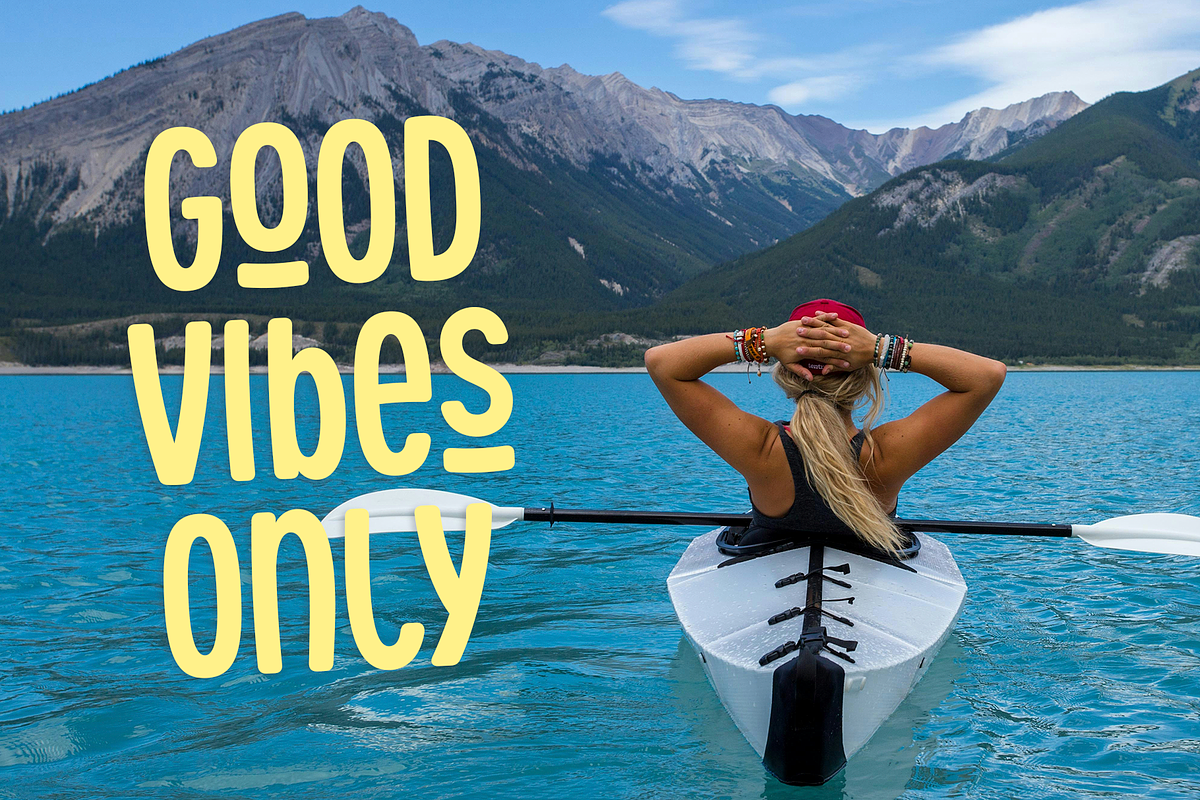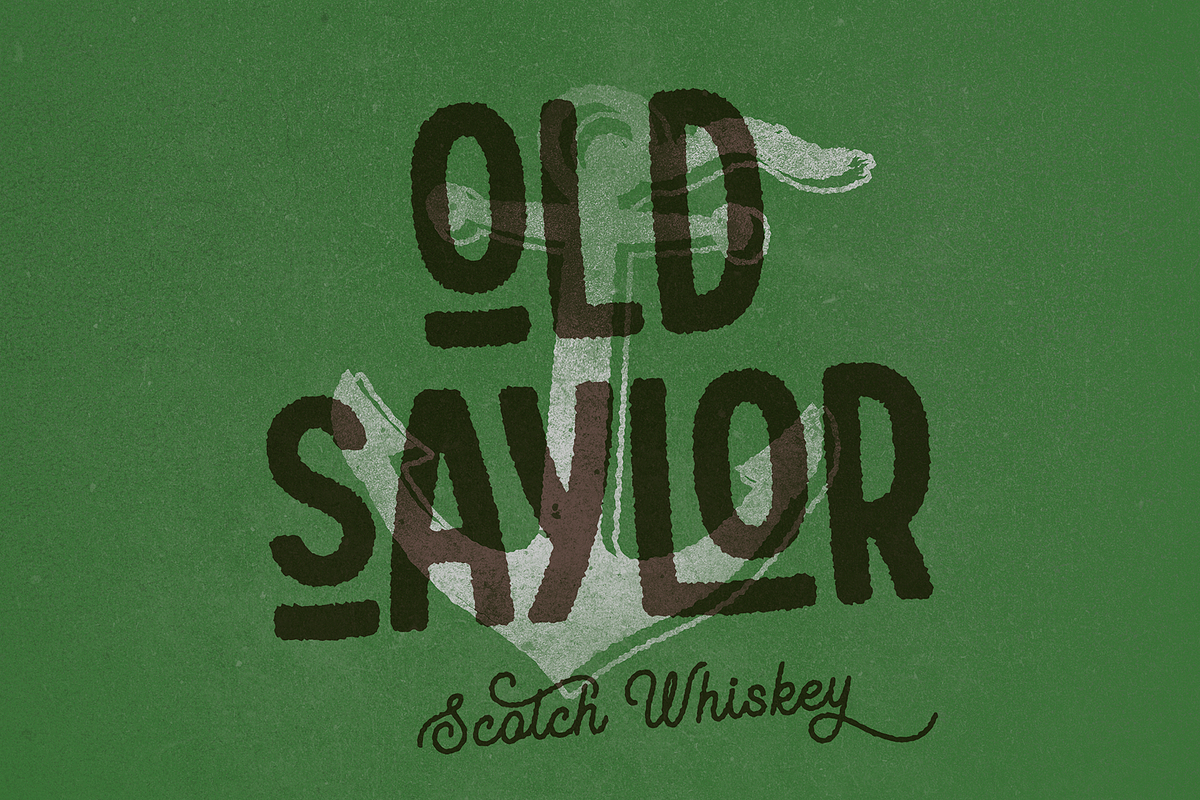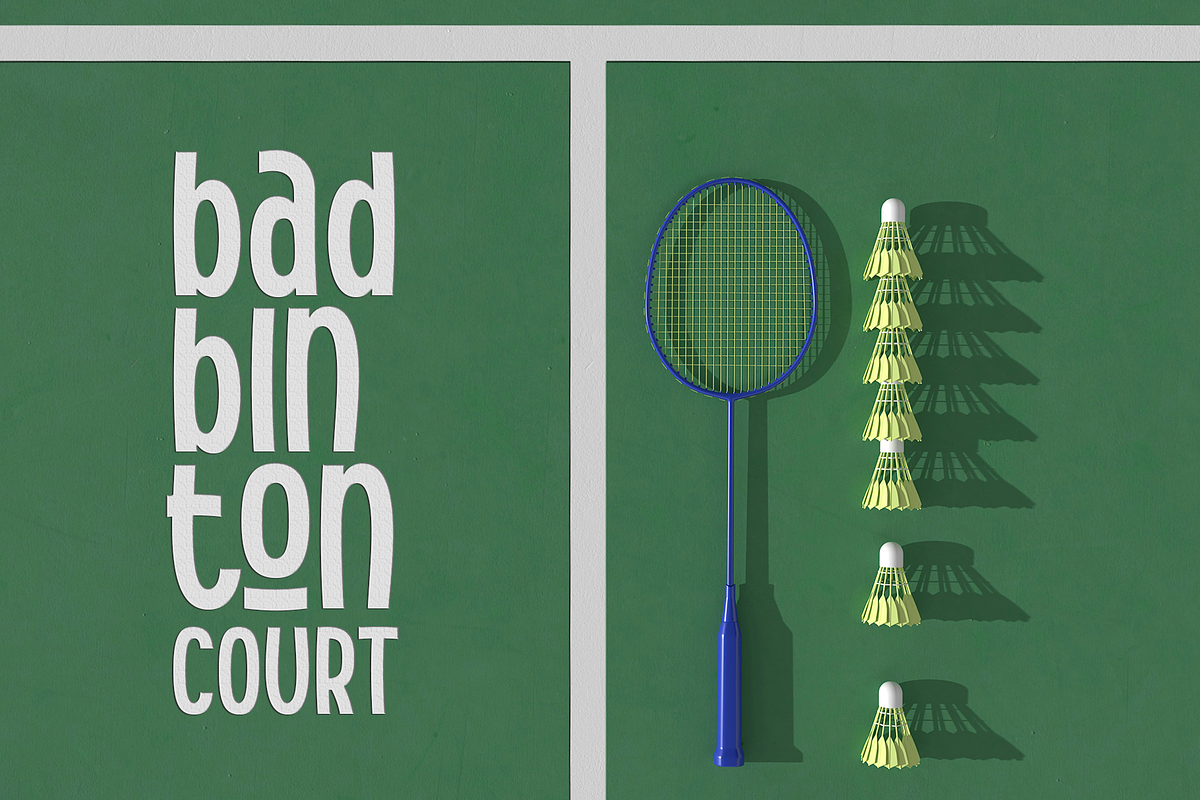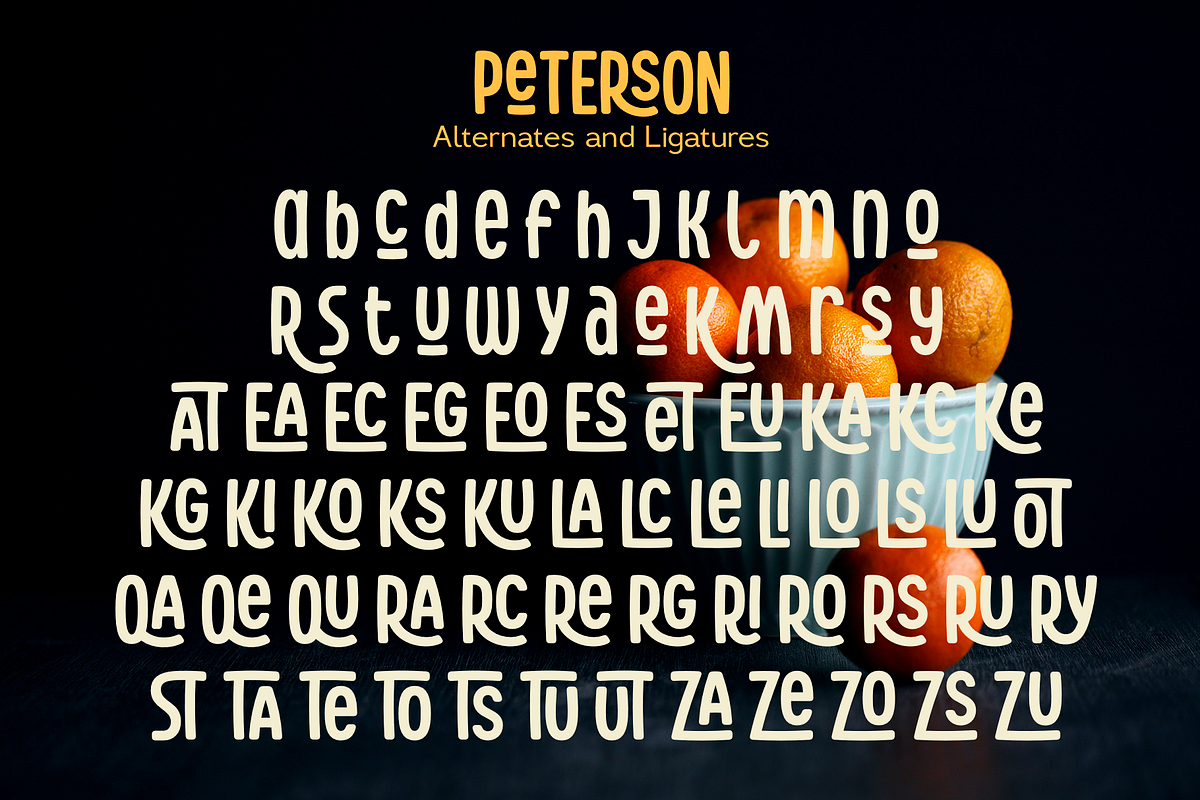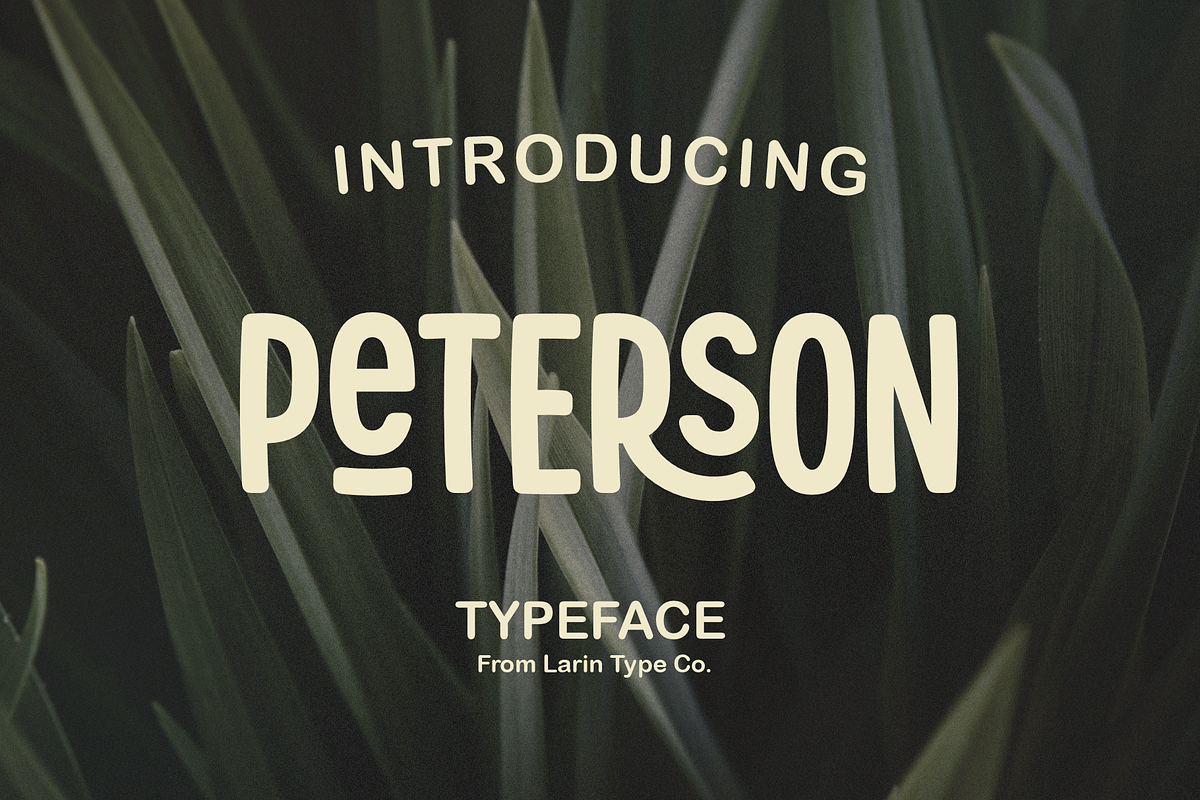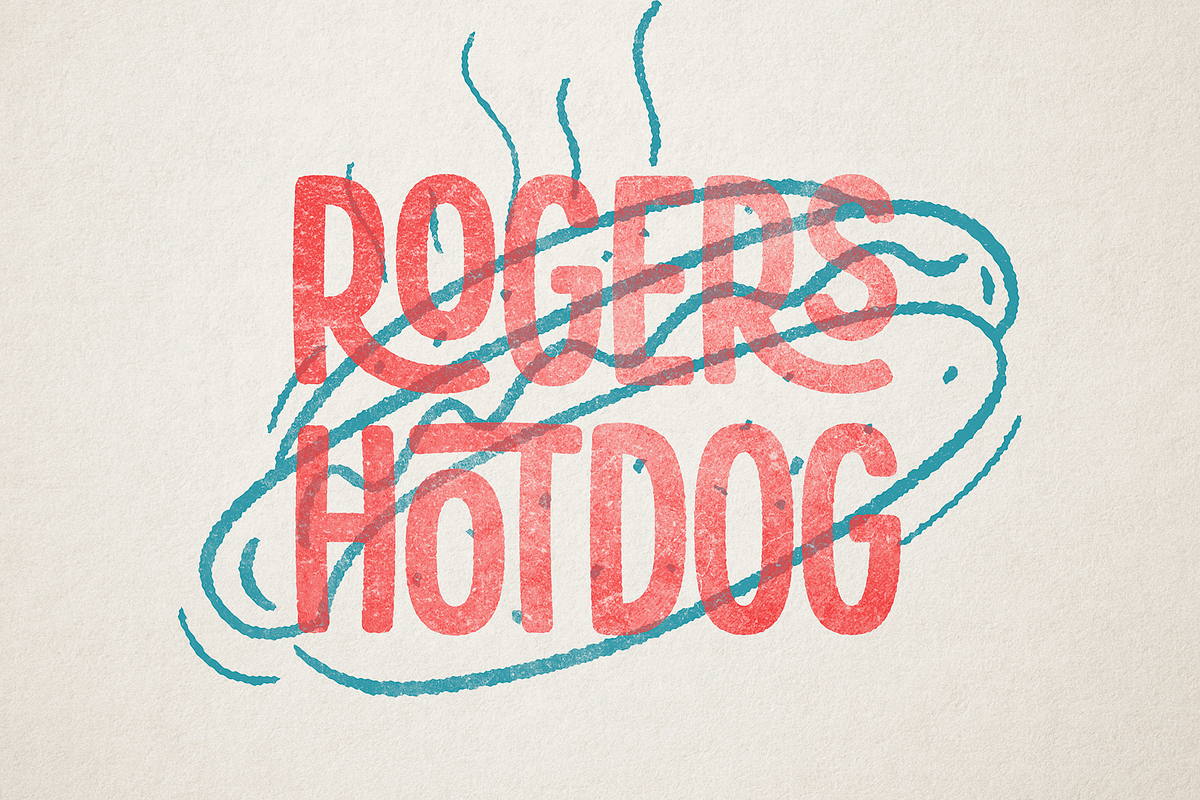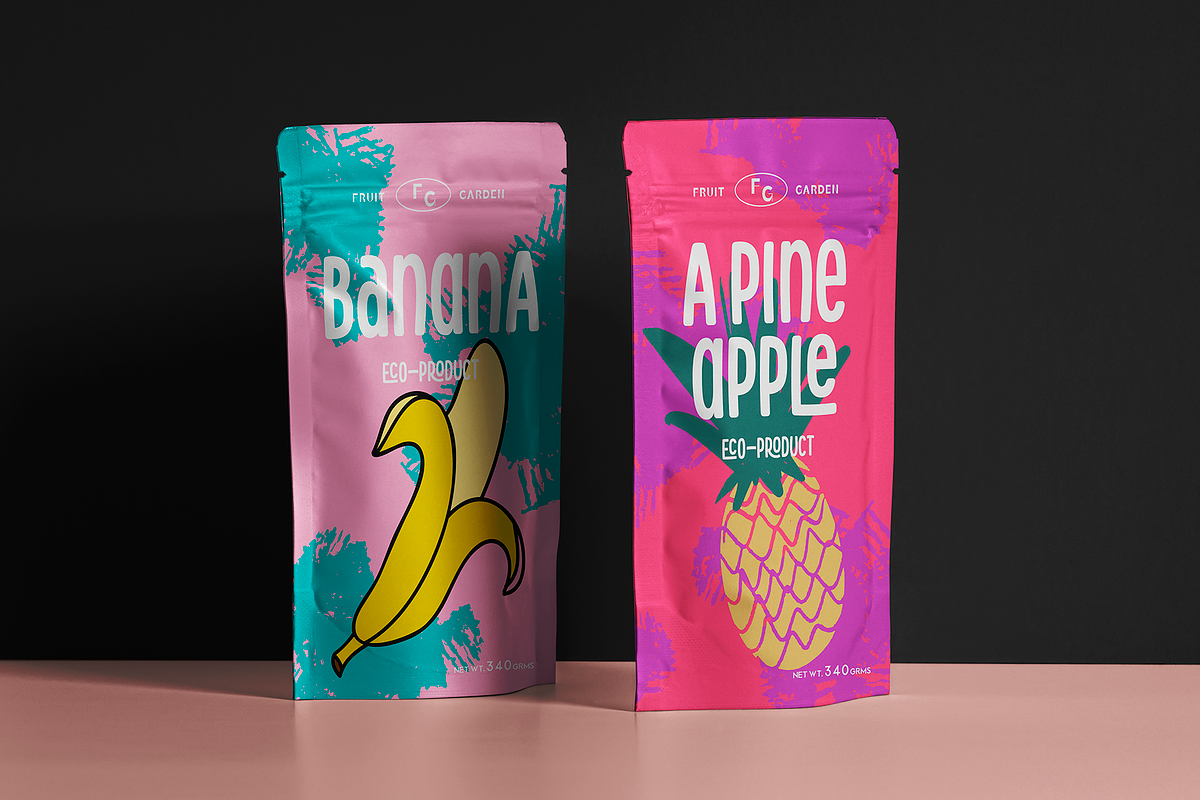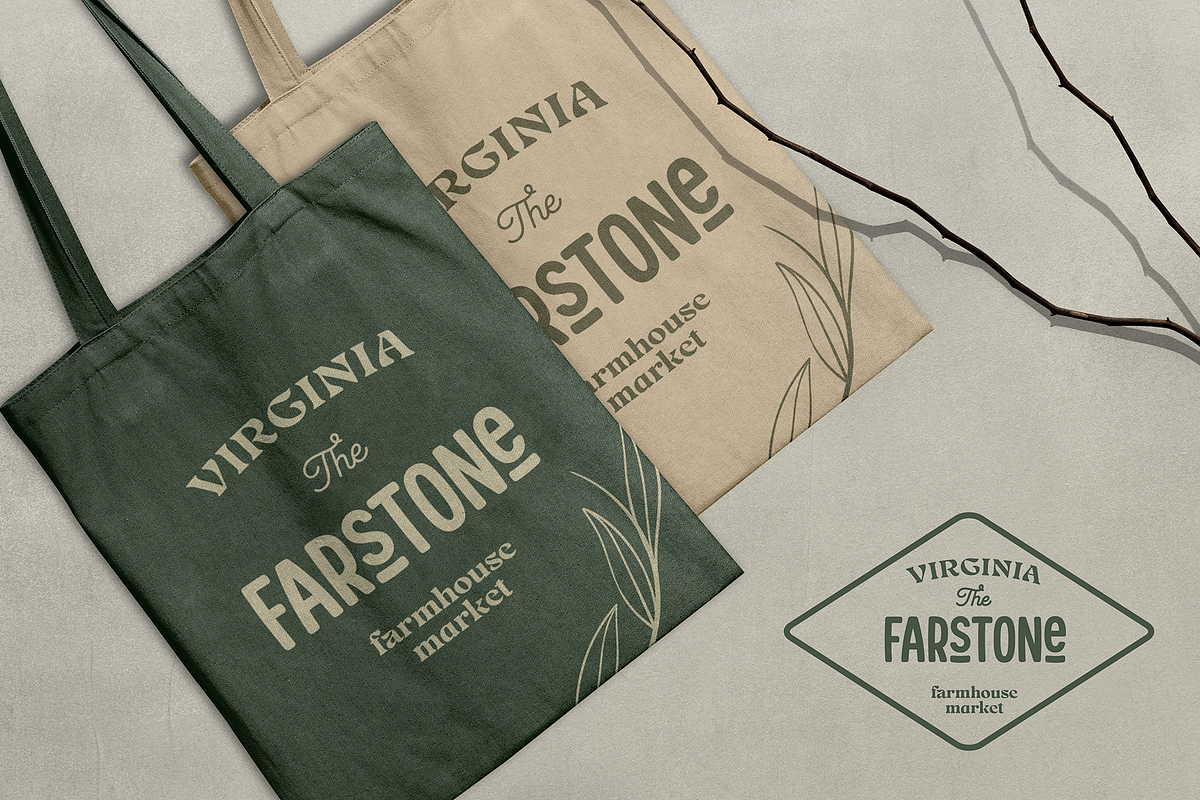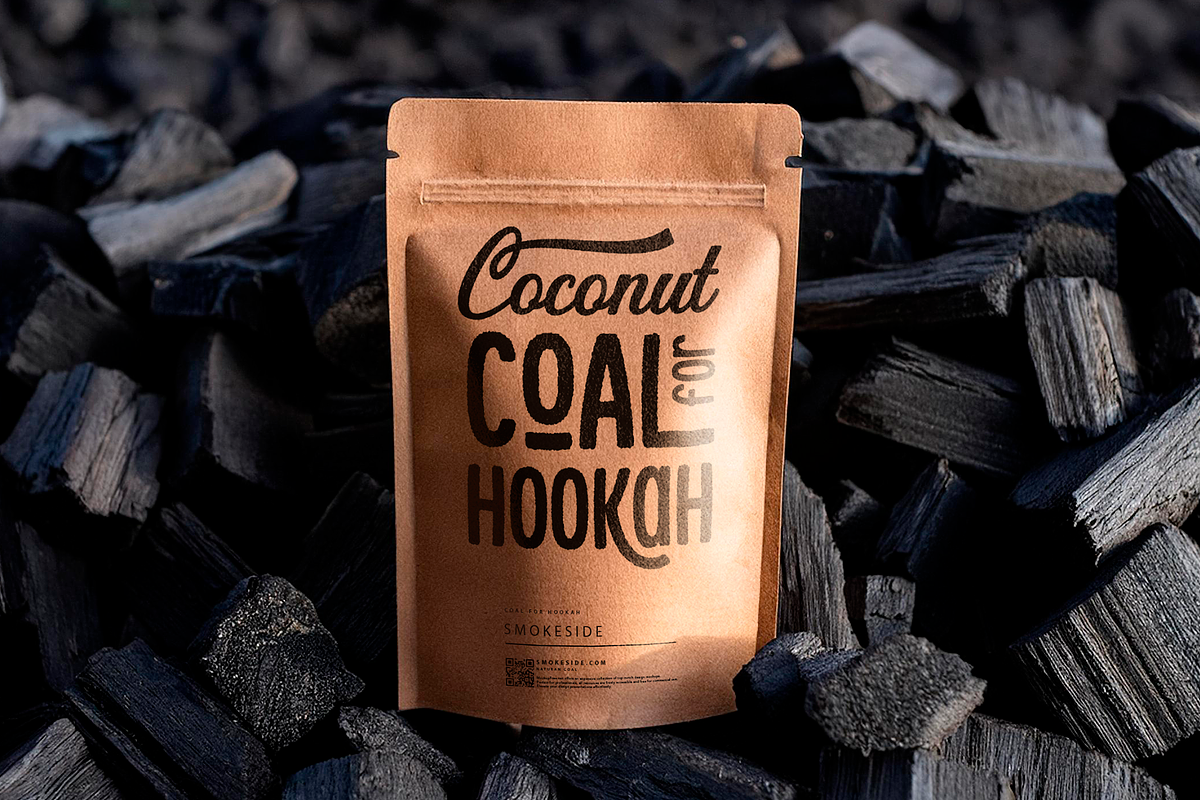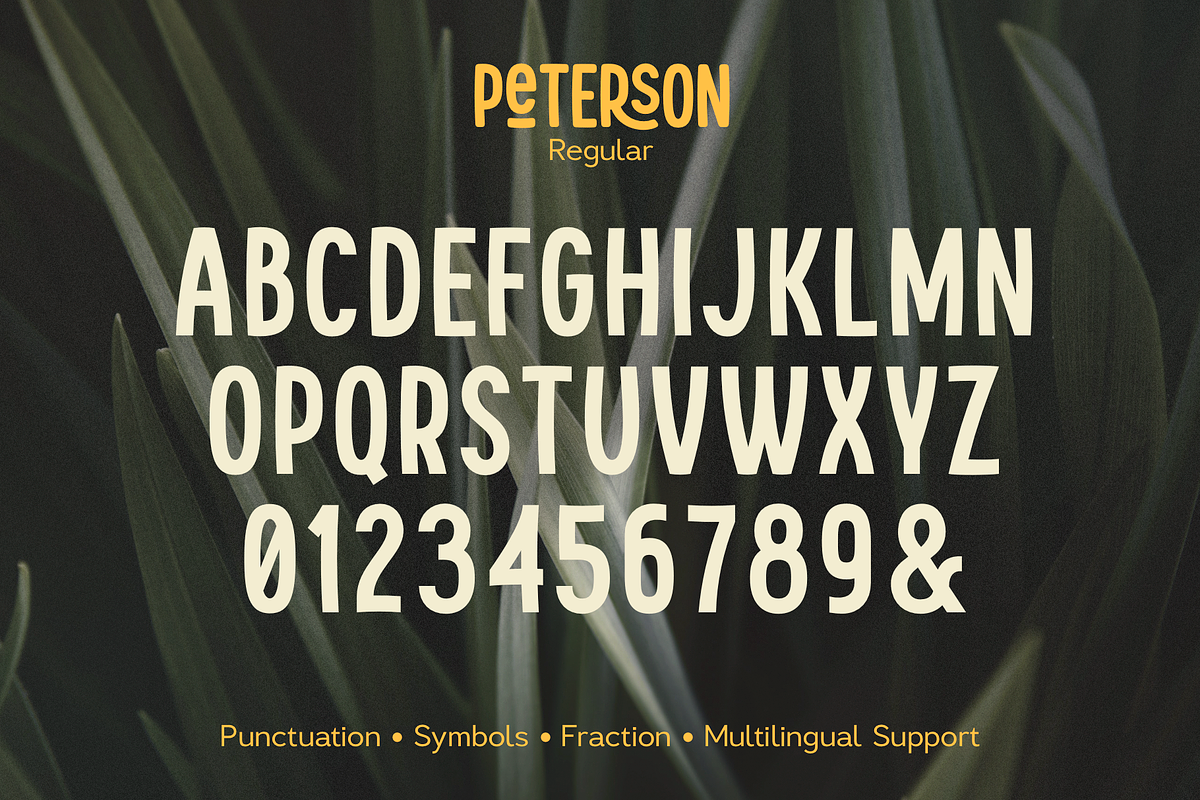
Peterson
Peterson is a stunning display sans serif font that comes in three styles: Regular, Round and Rough styles This font contains many alternates and ligatures, so make them up to the extent that your design's creativity is enough. Peterson font versatile it can be used both in modern projects and in vintage ones, as a main or additional one. This font is easy to use, has OpenType features.
Following international symbols support: ÀÁÂÃÄÅĄÇĆÈÉÊËĘÌÍÎÏÐÑŃŁÒÓÔÕÖØÙÚÛÜŚŠŸÝŹŻŽßàáâãäåçèéêëìíîïðñòóôõöøùúûüýÿąćęłńśšźżž